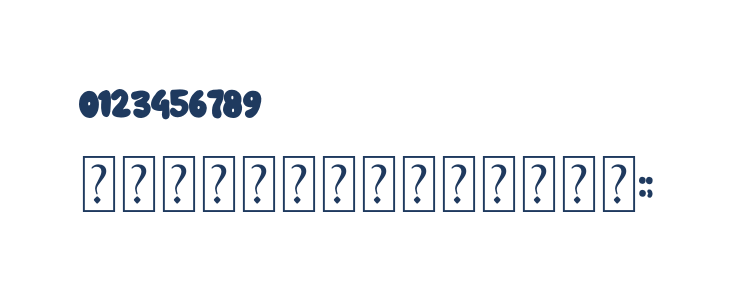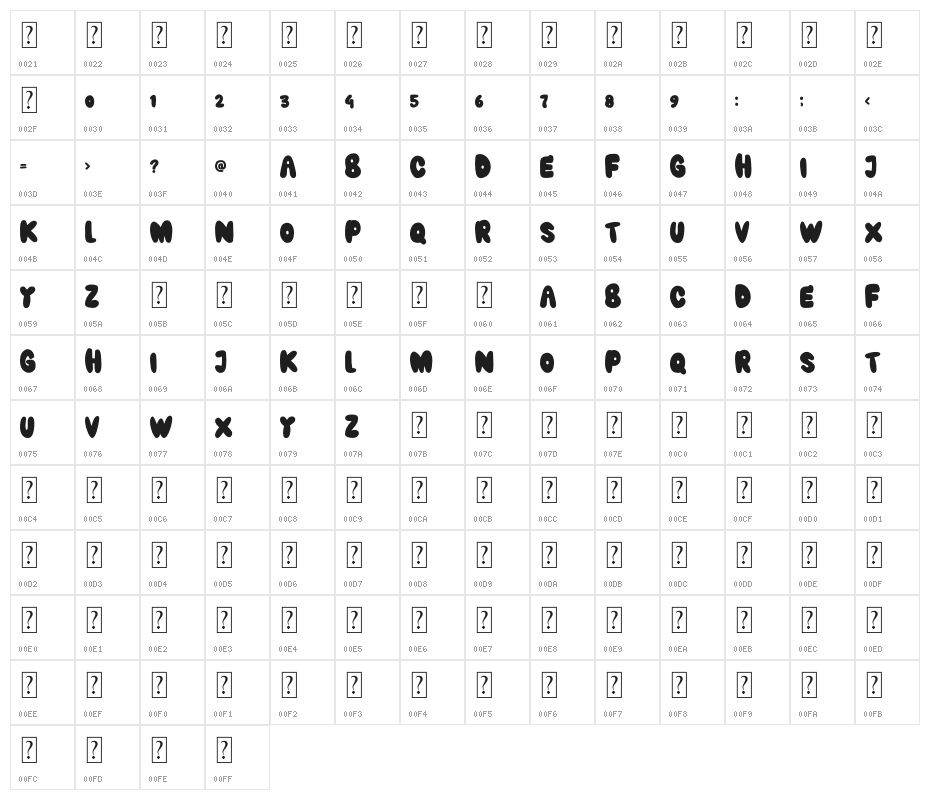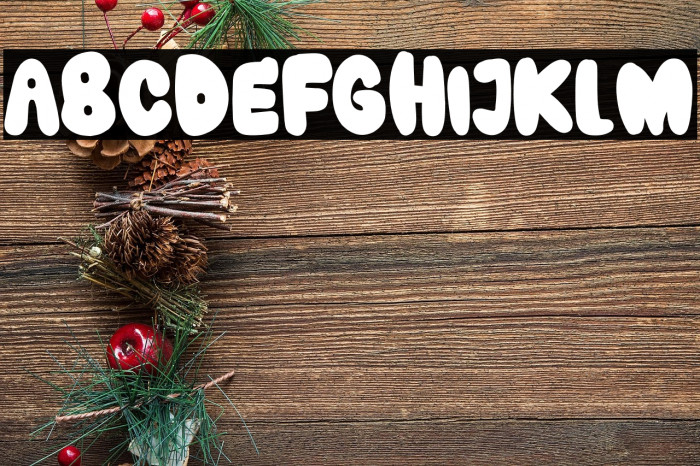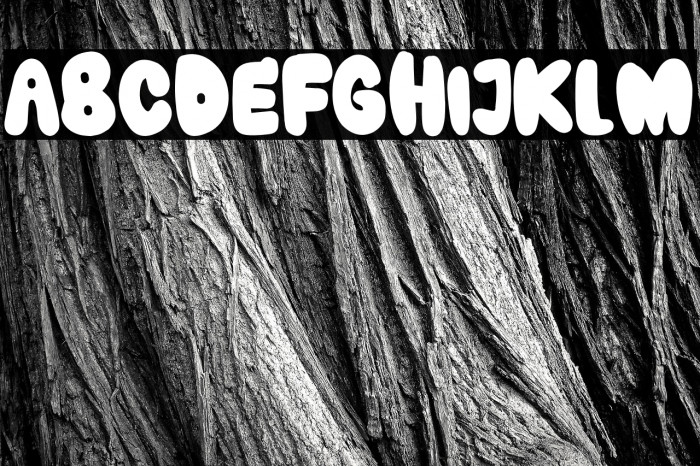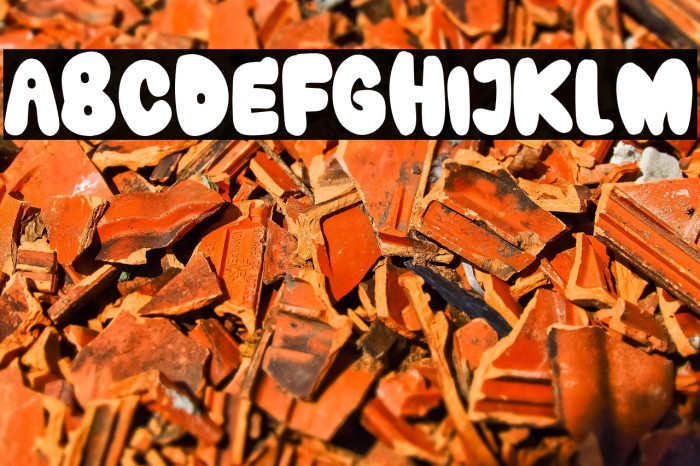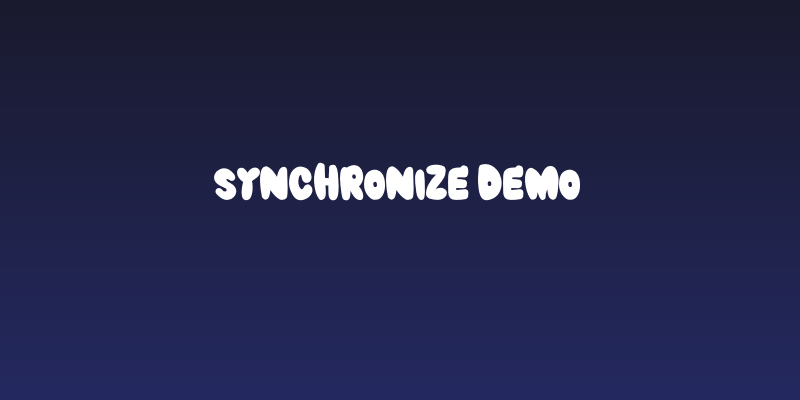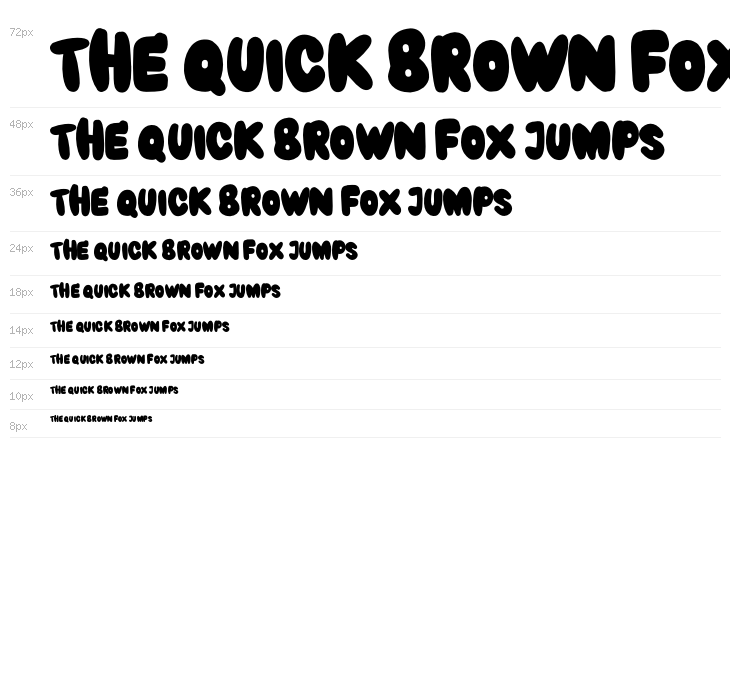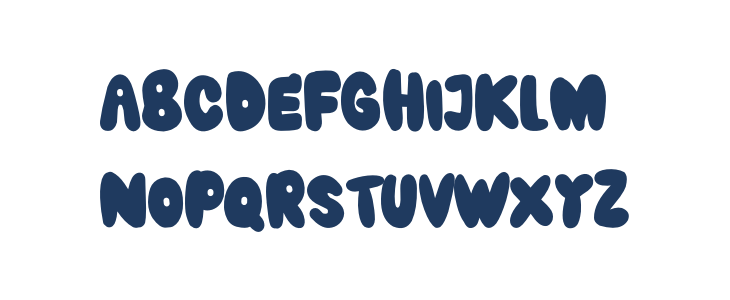
SYNCHRONIZE DEMO Font
SYNCHRONIZE DEMO Description
This font features bold, rounded characters with a playful and whimsical appearance. The letters are thick and have a consistent, smooth curvature that gives them a friendly and approachable feel. The numbers and special characters follow the same design principles, maintaining uniformity across the set. The overall style is reminiscent of retro or vintage designs, making it suitable for projects that require a fun and lively touch. The font's boldness ensures high visibility and impact, making it ideal for attention-grabbing headlines or logos.
| Overall Style | Retro, Playful, Decorative |
| Proposed Projects | Ideal for children's books, playful branding, event posters, or any project needing a fun and lively typeface. |